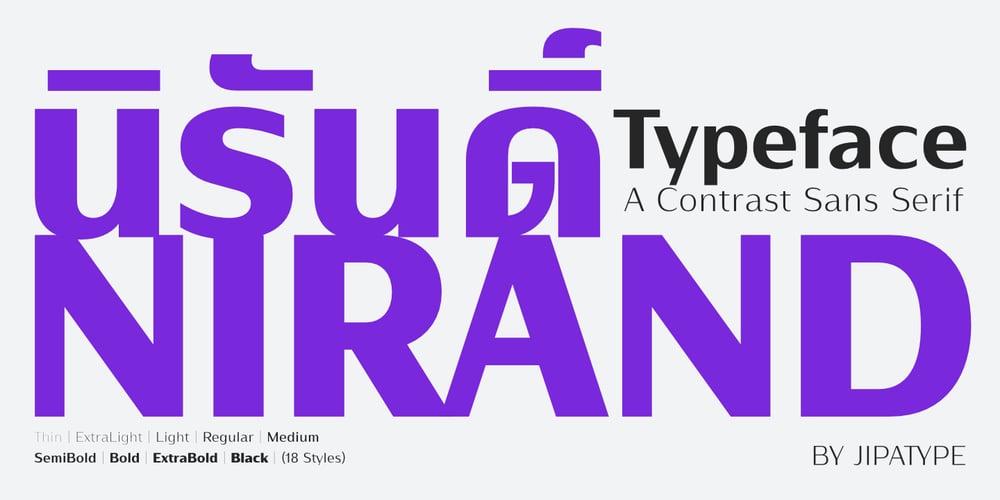
Nirand
Nirand font
Nirand Font Family was designed by Anupap Jaichumnan and published by Jipatype. Nirand contains 18 styles and family package options. Nirand is a versatile sans-serif typeface designed to support both Thai and Latin-1 character sets. It features a distinctive low contrast in stroke width, adding a touch of elegance to its modern form. The font family offers a comprehensive range of 18 styles, spanning from Thin to Black weights